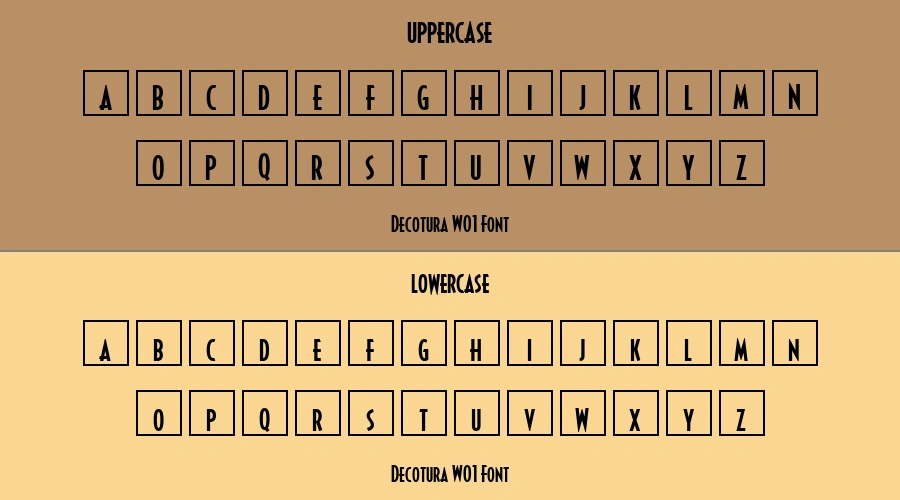
About Decotura W01 Font
When typographic excellence matters most, Decotura W01 Font delivers through its thoughtful blend of balanced weights and design consistency. Specially crafted for advertising campaigns, it offers the precision and cultural relevance required for sophisticated design work. Every detail serves a purpose.
The character set showcases thoughtful details like expressive energy alongside functional inferior figures. This proves especially valuable in headlines, where archive stability directly influences results. Particular attention was paid to stem weight and technical innovation during development.